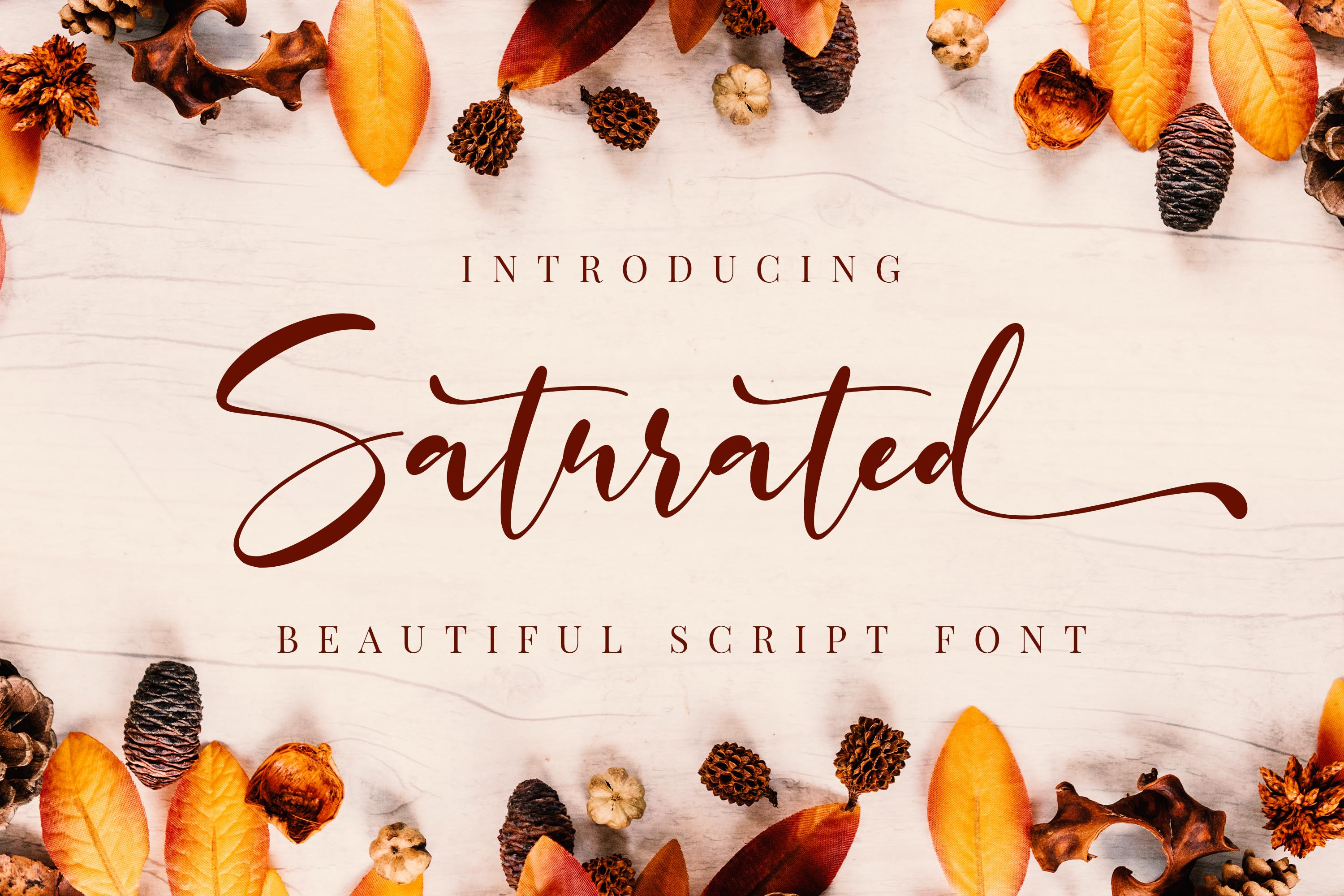
Saturated - Beautiful Script Font
Saturated is a script font with a natural handwritten feel. It has lovely ligatures and alternates that are perfect for any creative design. This handmade font will make your design has a beautiful natural touch for each details. It is perfect for any design project as Invitation,logo, book cover, craft or any design purposes.
This font is PUA encoded which means you can access all of the magical glyphs and swashes with ease! It also features a wealth of special features including alternate glyphs and ligatures.